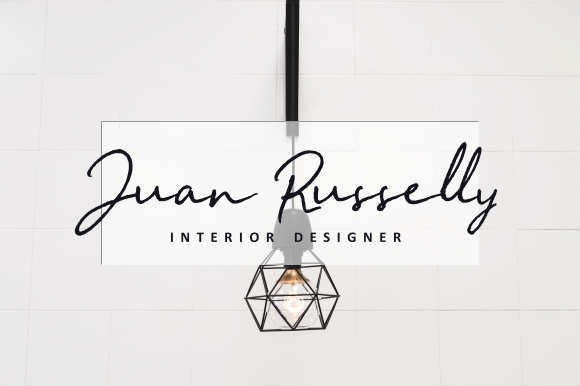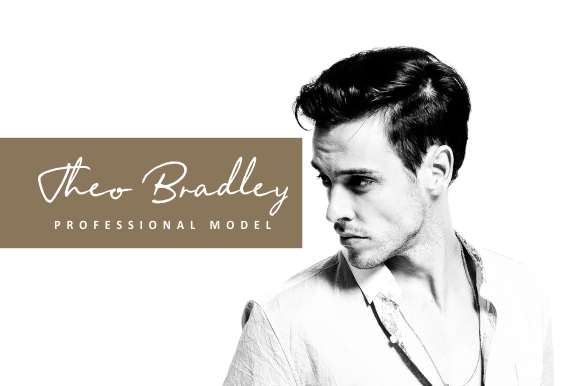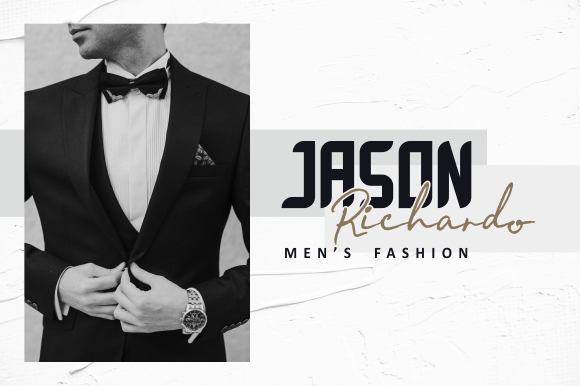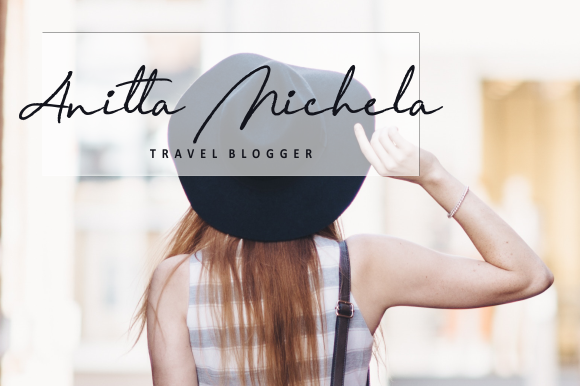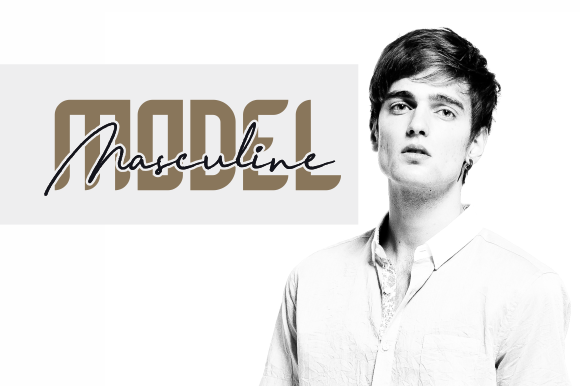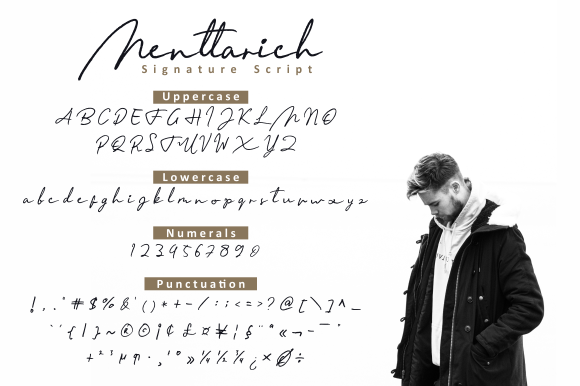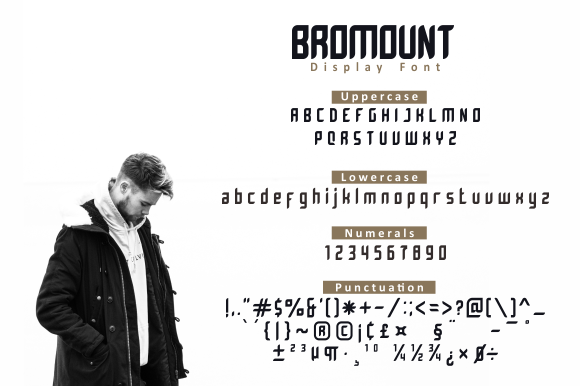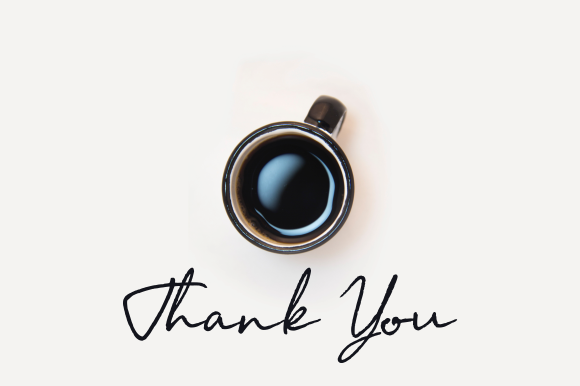
Menttarich Duo Font
About Menttarich Duo Font
Menttarich Duo combines a sans serif and a Signature script font into one stunning pairing. Get inspired by this classic, yet contemporary font duo and turn any design creation into a stand out.